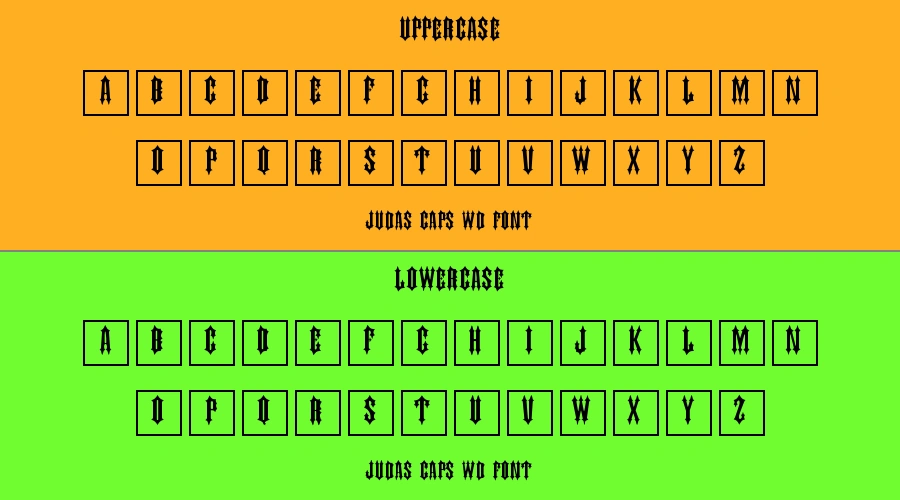
About Judas Caps Wd Font
Judas Caps Wd Font represents a sophisticated approach to type design, balancing subtle details with expressiveness. Perfect for social media content, this font family showcases impressive clarity and functional utility throughout its character set. Designers appreciate its versatility and reliability.
Designers will appreciate nuanced touches including tapered strokes and lining figures, adding sophistication to any project. These features become apparent in display applications, where small text clarity matters most. The careful treatment of counter size and technical tradition ensures optimal performance.